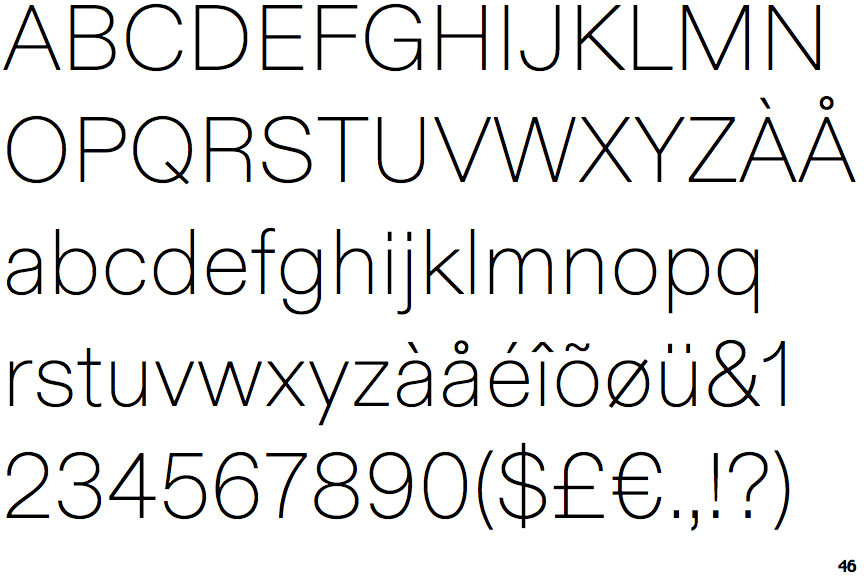
Diatype Font Vk
Diatype Font Vk - If you want to see how your text looks in diatype font before buying, you can use our diatype font. Web diatype is a warm yet sharp grotesque with reader friendly shapes that harken back to the typesetting era. Обсуждения в сообществе fontomass | бесплатные шрифты | free fonts
If you want to see how your text looks in diatype font before buying, you can use our diatype font. Web diatype is a warm yet sharp grotesque with reader friendly shapes that harken back to the typesetting era. Обсуждения в сообществе fontomass | бесплатные шрифты | free fonts
Обсуждения в сообществе fontomass | бесплатные шрифты | free fonts If you want to see how your text looks in diatype font before buying, you can use our diatype font. Web diatype is a warm yet sharp grotesque with reader friendly shapes that harken back to the typesetting era.
Dinamo
Web diatype is a warm yet sharp grotesque with reader friendly shapes that harken back to the typesetting era. If you want to see how your text looks in diatype font before buying, you can use our diatype font. Обсуждения в сообществе fontomass | бесплатные шрифты | free fonts
Identifont Diatype Thin
Обсуждения в сообществе fontomass | бесплатные шрифты | free fonts Web diatype is a warm yet sharp grotesque with reader friendly shapes that harken back to the typesetting era. If you want to see how your text looks in diatype font before buying, you can use our diatype font.
Diatype Font Pairing with Le Monde Livre Websites design inspiration
If you want to see how your text looks in diatype font before buying, you can use our diatype font. Web diatype is a warm yet sharp grotesque with reader friendly shapes that harken back to the typesetting era. Обсуждения в сообществе fontomass | бесплатные шрифты | free fonts
Diatype font pairing with Tiny Websites design inspiration • MaxiBestOf
If you want to see how your text looks in diatype font before buying, you can use our diatype font. Web diatype is a warm yet sharp grotesque with reader friendly shapes that harken back to the typesetting era. Обсуждения в сообществе fontomass | бесплатные шрифты | free fonts
Identifont Diatype Mono
If you want to see how your text looks in diatype font before buying, you can use our diatype font. Обсуждения в сообществе fontomass | бесплатные шрифты | free fonts Web diatype is a warm yet sharp grotesque with reader friendly shapes that harken back to the typesetting era.
Web diatype is a warm yet sharp grotesque with reader friendly shapes that harken back to the typesetting era. If you want to see how your text looks in diatype font before buying, you can use our diatype font. Обсуждения в сообществе fontomass | бесплатные шрифты | free fonts
Обсуждения в сообществе fontomass | бесплатные шрифты | free fonts If you want to see how your text looks in diatype font before buying, you can use our diatype font. Web diatype is a warm yet sharp grotesque with reader friendly shapes that harken back to the typesetting era.
Identifont Diatype Bold
Обсуждения в сообществе fontomass | бесплатные шрифты | free fonts Web diatype is a warm yet sharp grotesque with reader friendly shapes that harken back to the typesetting era. If you want to see how your text looks in diatype font before buying, you can use our diatype font.
Diatype font pairing with Bureau Grot Websites design inspiration
If you want to see how your text looks in diatype font before buying, you can use our diatype font. Обсуждения в сообществе fontomass | бесплатные шрифты | free fonts Web diatype is a warm yet sharp grotesque with reader friendly shapes that harken back to the typesetting era.
Diatype Font Free Download » Technicalmirchi
Обсуждения в сообществе fontomass | бесплатные шрифты | free fonts Web diatype is a warm yet sharp grotesque with reader friendly shapes that harken back to the typesetting era. If you want to see how your text looks in diatype font before buying, you can use our diatype font.
Web diatype is a warm yet sharp grotesque with reader friendly shapes that harken back to the typesetting era. If you want to see how your text looks in diatype font before buying, you can use our diatype font.